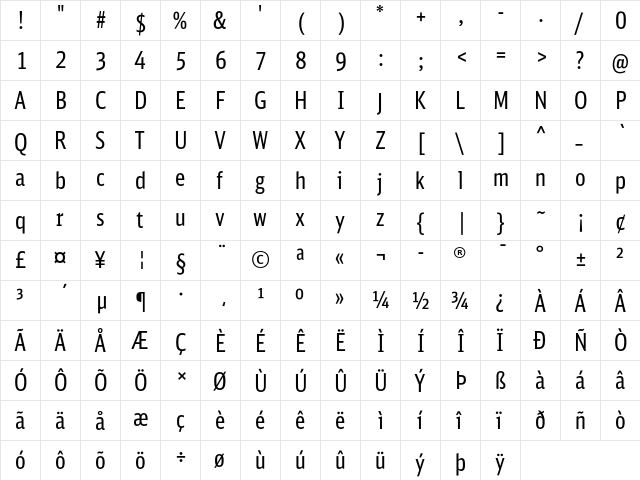
DB Sans Comp Regular
Design Context for DB Sans Comp Typeface
DB Sans Comp is a composed and adaptable typeface that performs quietly and consistently across a wide range of design contexts.
Pro Tip: Pair DB Sans Comp with a font of contrasting weight or personality to build a more expressive typographic hierarchy.